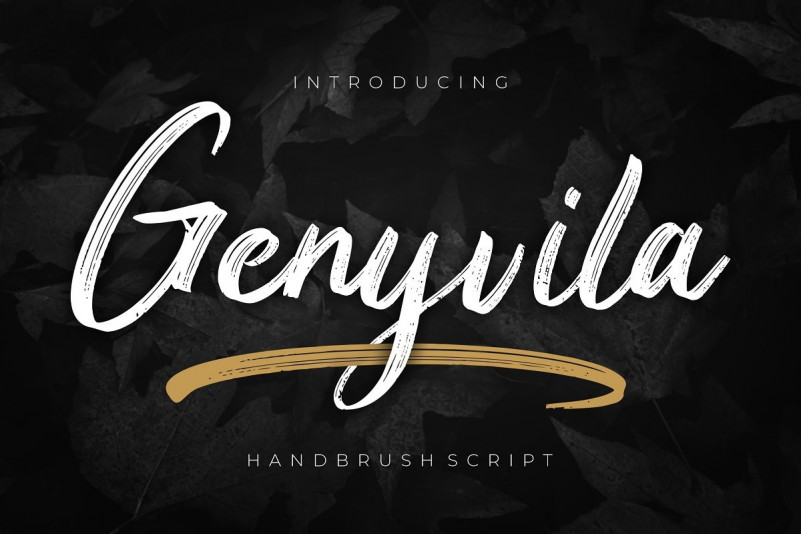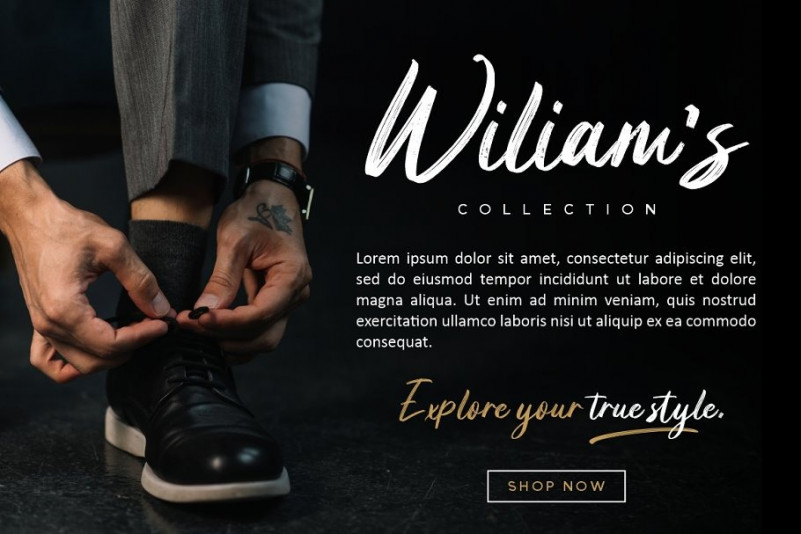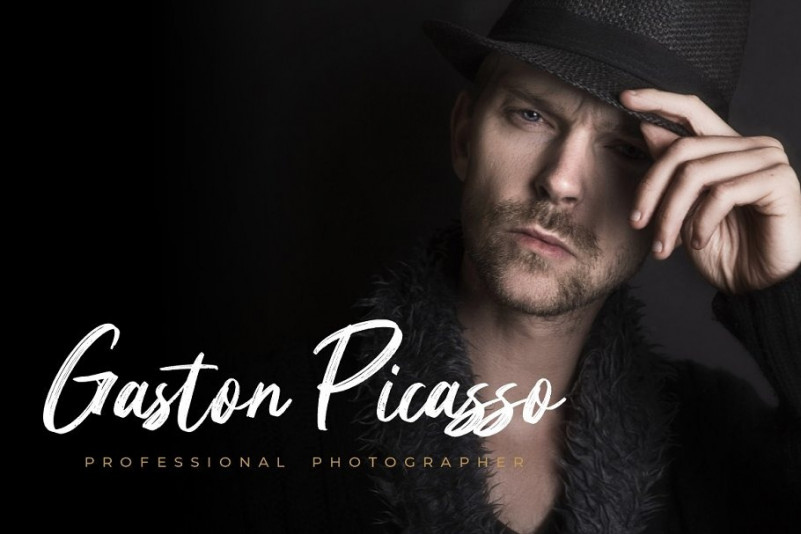
Genyvila Font
Introducing Genyvila – Handbrush font with bold and stylish scratch make will perfect for your latest project. The font is perfect for for movie title, logo, blogging, brand identity, book title, social media, branding, wedding invites, cards or simply use it in your next design project and suitable to use for many occasion.